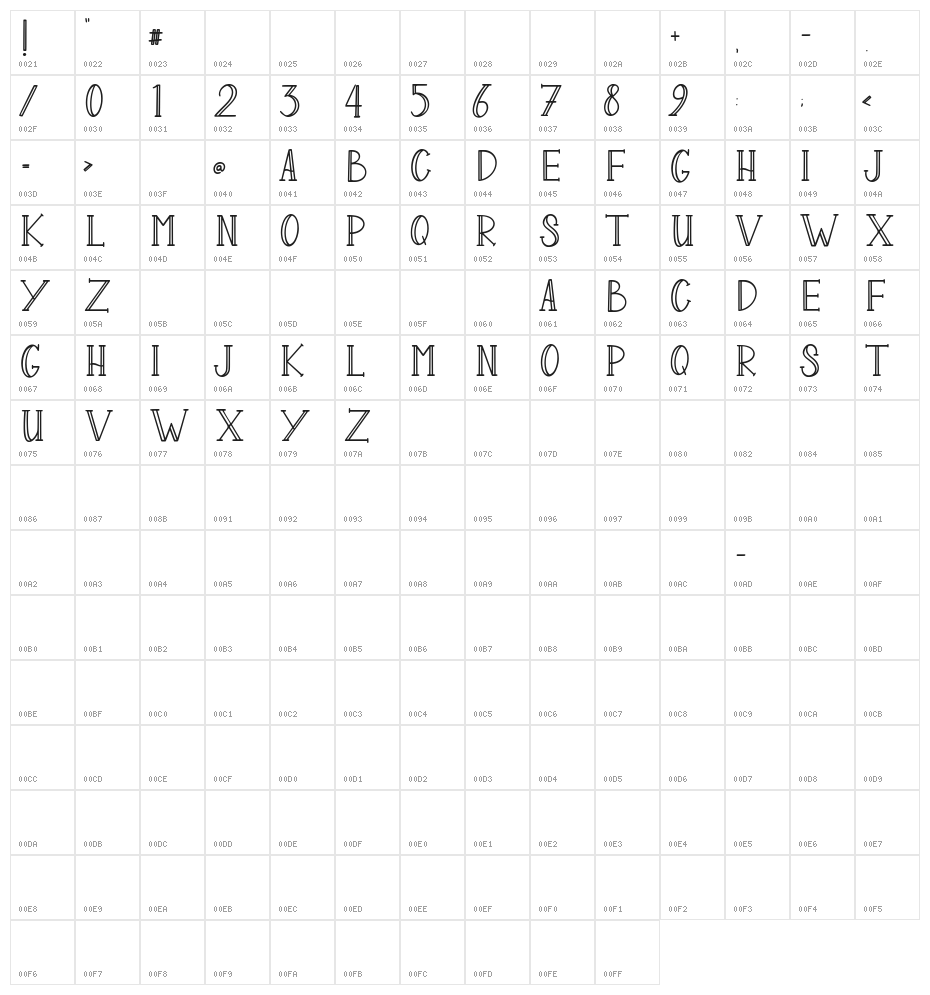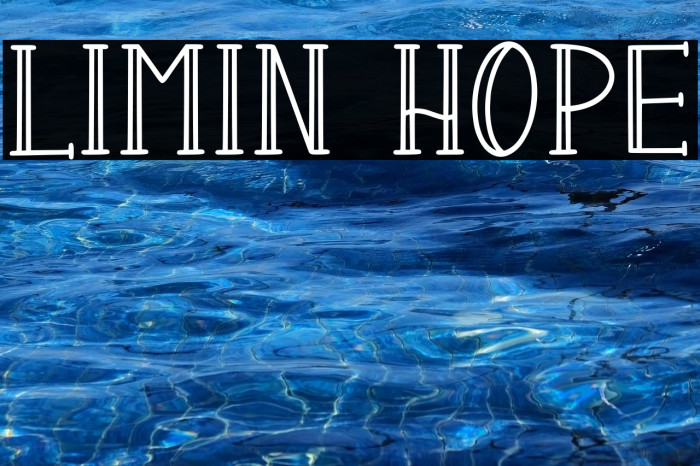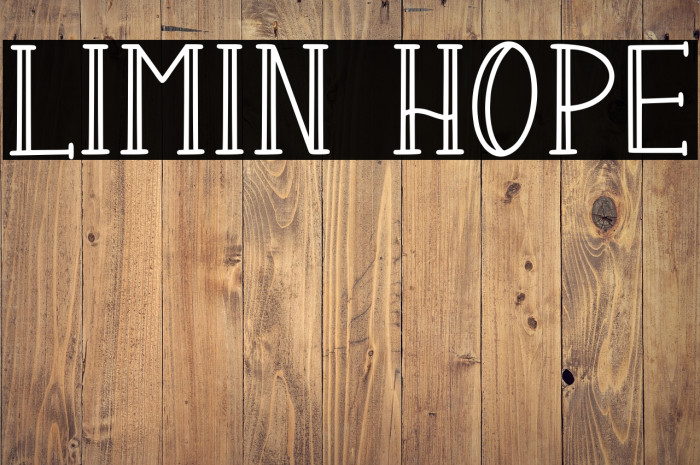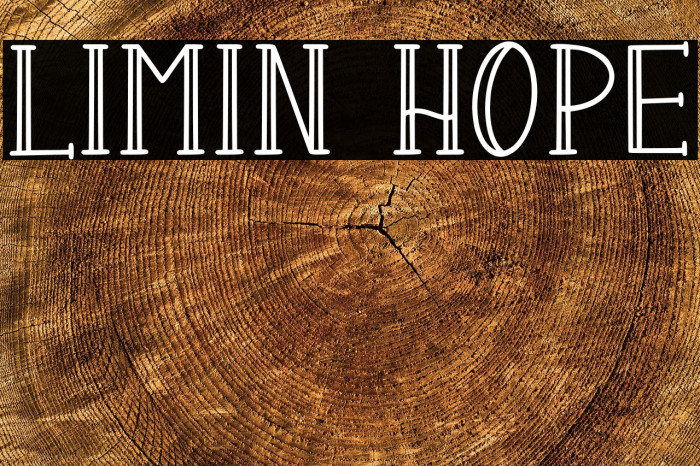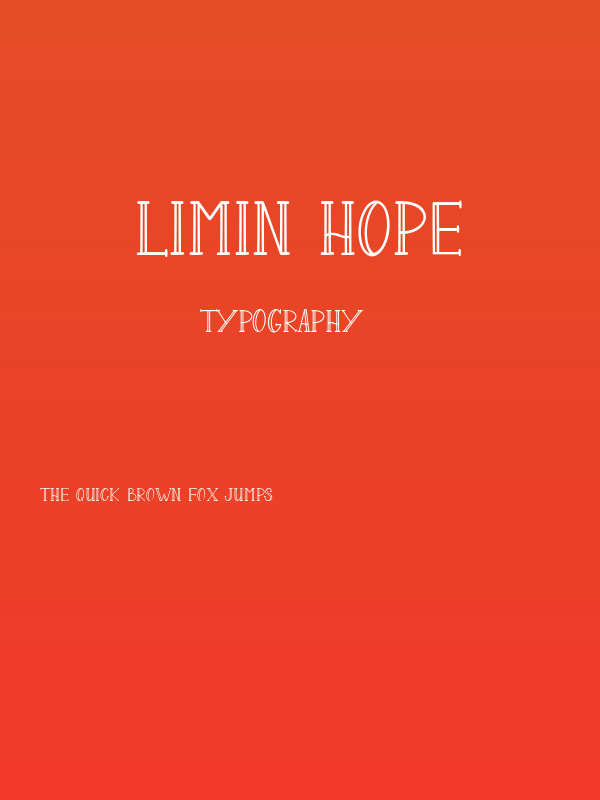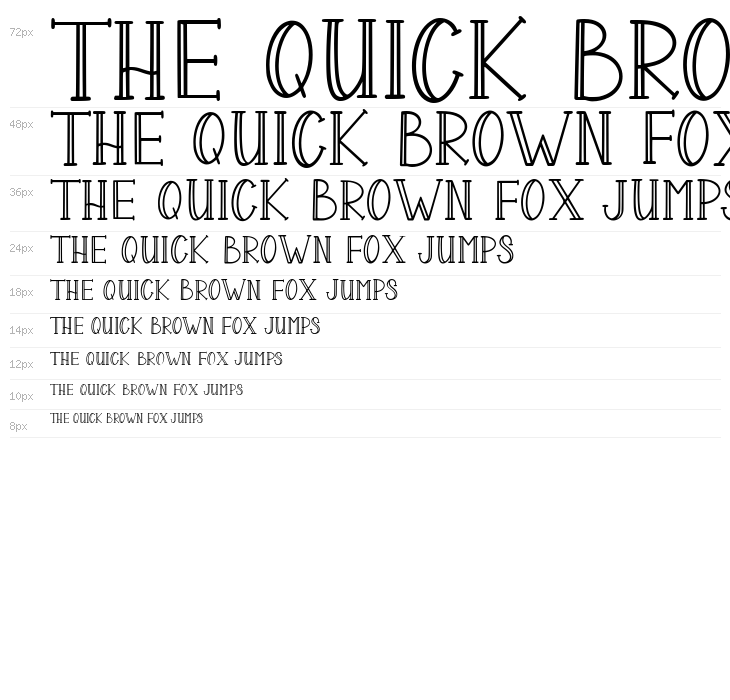
LIMIN HOPE Font
LIMIN HOPE Description
This font features a unique and artistic design with a decorative flair. The characters are tall and slender, with a distinct geometric influence that gives them a modern yet vintage appeal. The uppercase letters are particularly striking, with elongated forms and subtle serifs that add a touch of elegance. The lowercase letters maintain the same stylistic elements, ensuring consistency throughout the typeface. Numbers and special characters are designed to match the overall aesthetic, making this font versatile for various design projects. The spacing between characters is balanced, providing a clean and readable appearance.
| Overall Style | Vintage, Modern |
| Proposed Projects | Ideal for branding, posters, headlines, and any project requiring a stylish, artistic touch. |